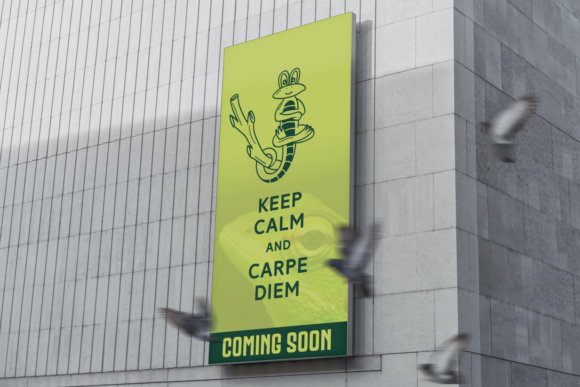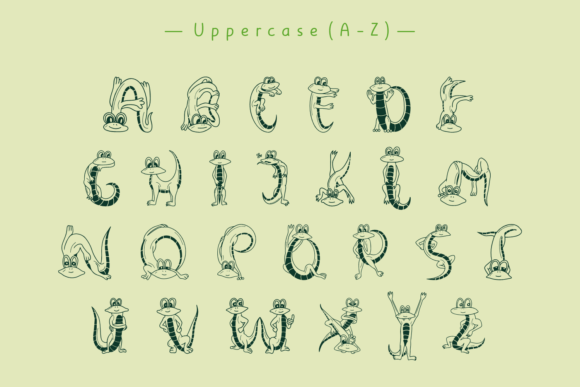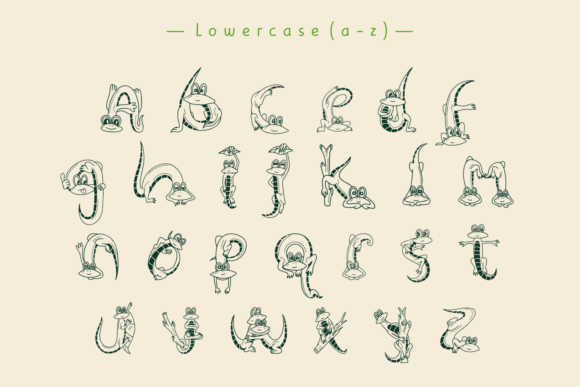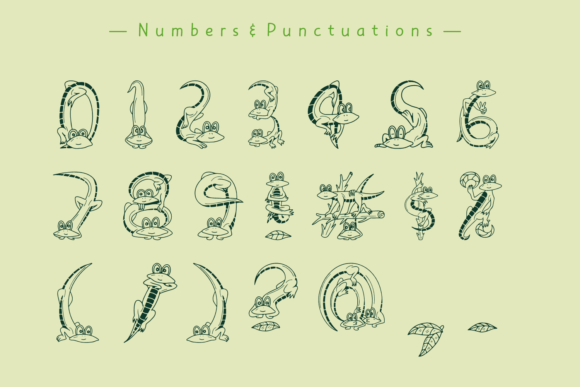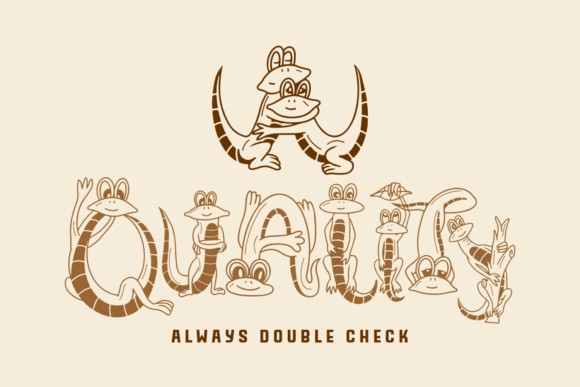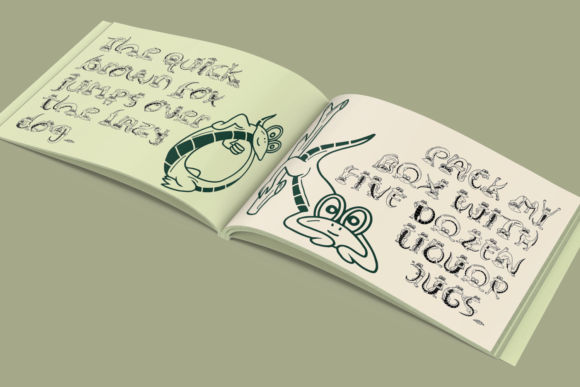
Introduction to Lizact Font
Remember that moment when you were working on a creative project, and you just couldn’t find the right font to bring it all together? The perfect combination of style and uniqueness seemed elusive, until you stumbled upon the perfect design resource – the Lizact Font.
This incredibly unique and out-of-this-world decorative font is a game-changer for designers looking to make their creations stand out from the crowd. Whether you’re working on a digital project or a print design, the Lizact Font adds a touch of sophistication and elegance that’s hard to find elsewhere.
Key Features of Lizact Font
- Unique, artistic font style with a transparent background, perfect for adding a touch of elegance to any design.
- Designed with precision and attention to detail, ensuring crisp and clear text at high resolutions (up to 300 DPI).
- Ideal for use in graphic design, digital art, and other creative projects where a unique font style is desired.
- Comes in a single size, making it versatile for use in various design contexts.
Honest Review: Lizact Font
I recently had the chance to try out the Lizact Font, and I must say it’s a game-changer for any creative project. This font is perfect for designers looking for a high-quality, free download that can elevate their design resource.
Here are some of the things that work well for the Lizact Font:
- ✨ High-quality design: The font is well-crafted and looks great on any background, including those with a transparent background.
- ✨ Versatility: The Lizact Font is suitable for a wide range of creative projects, from logos to print materials.
- ⚠️ Limited font styles: While the font itself is great, the selection of font styles is relatively limited.
- ⚠️ No bold or italic options: Depending on your design needs, you may find that the font lacks bold or italic options, which can be a drawback.
Overall, I’m impressed with the Lizact Font. While it may have some limitations, its high-quality design and free download make it a valuable resource for designers. With a bit more development, it could become an even more powerful design tool.
Getting the Most Out of Lizact Font
For high-quality results, use Lizact Font with a transparent background to create a clean and modern design. Experiment with different font sizes and styles to add visual interest to your project.
Lizact Font is ideal for creative projects such as logos, brochures, and social media graphics. Its high-quality design makes it a popular choice among designers and non-designers alike.
2. Lobster Font
The Lobster Font is a popular and stylish script font that is often used for creative projects such as posters, flyers, and social media graphics. It has a fun and playful vibe and can be downloaded for free. It compares to Lizact Font in its bold and eye-catching look, but it has a more casual and laid-back feel to it.
The Great Vibes Font is a high-quality script font that is perfect for design resources such as logos, branding materials, and website headers. It features a transparent background and can be downloaded for free. It compares to Lizact Font in its elegant and sophisticated look, but it has a more modern and sleek feel to it.
Yes, the Lizact Font comes with a transparent background, making it easy to overlay on images or use with a custom background. This feature allows for more flexibility in your design and helps you achieve a unique look for your creative project.